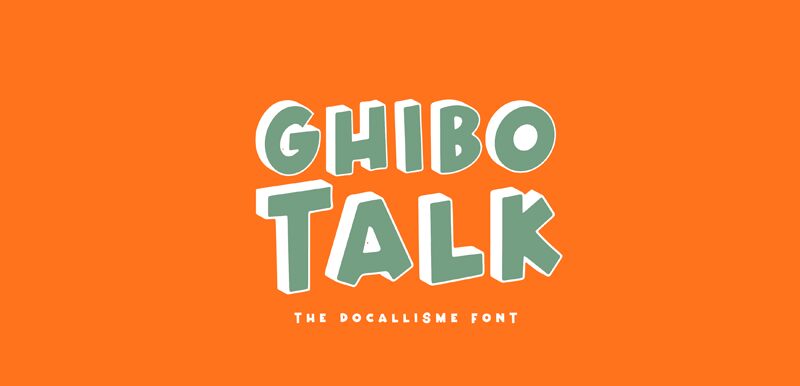
Ghibo Talk
Ghibo Talk, designed by The Docallisme - Amry Al Mursalaat, breathes life into the display font category with its 3D cartoon charm. Boasting a bold weight that demands attention, this playful typeface is a delightful pick for designers aiming to inject personality and warmth into their projects. Ideal for children's books, animated movie titles, and whimsical branding campaigns, Ghibo Talk's friendly curves and dimensional appearance ensure your creative work stands out with a touch of whimsy.
Its versatility makes it not only a joy to behold but also an asset across various mediums that seek to engage and captivate audiences with a lighthearted yet impactful visual language.